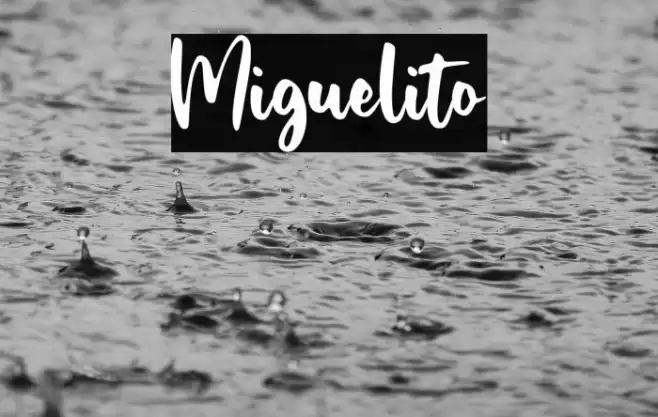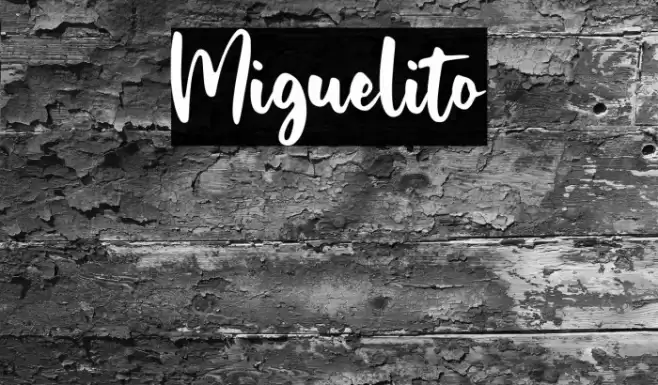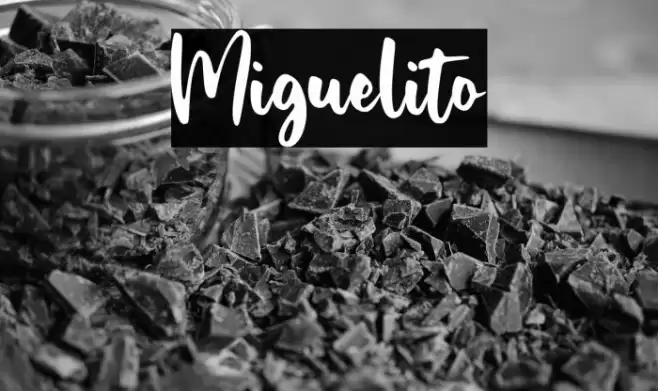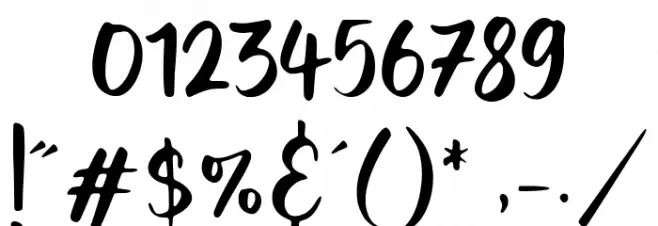
Miguelito Font
Miguelito Description
This font exhibits a lively and expressive handwritten style, characterized by its fluid and dynamic strokes. The uppercase letters are bold and slightly slanted, giving a sense of movement and energy. The lowercase letters maintain a consistent flow, with playful loops and curves that add a whimsical touch. The numerals are clear and bold, matching the overall energetic feel of the font. Special characters are creatively designed, maintaining the font's playful and artistic nature. This font is perfect for projects that require a personal and informal touch, such as greeting cards, invitations, and creative branding.
A lively and expressive handwritten font with dynamic strokes from Uncategorized fonts.